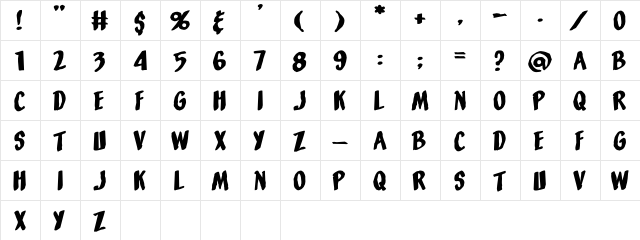
LHF Anna Banana Regular
| Foundry | Dave Correll for Letterhead Fonts |
| Designer | Dave Correll |
Design Context for LHF Anna Banana Typeface
LHF Anna Banana is a composed and adaptable typeface that performs quietly and consistently across a wide range of design contexts.